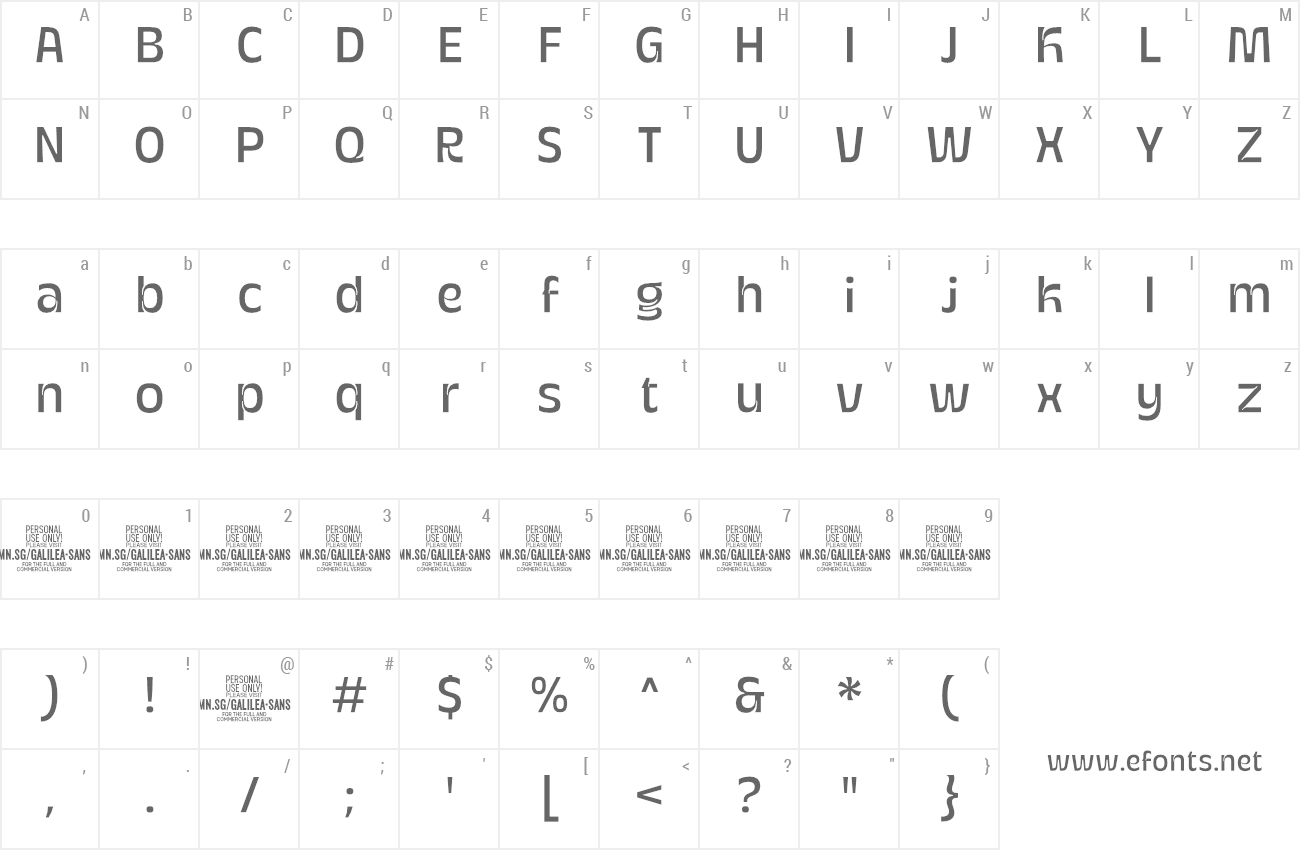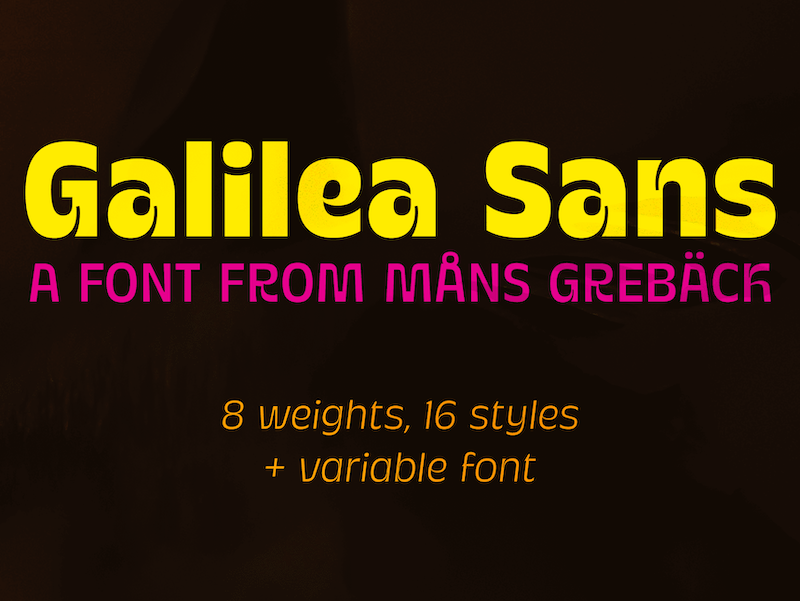
Preview and download Galilea Sans Font. Created by Måns Grebäck in Basic Sans serif styles with Free for personal use license.
NOTE: This font is for PERSONAL USE ONLY! To purchase a commercial license, visit: https://www.mansgreback.com/product/galilea-sans Galilea Sans is a contemporary sans serif family built around clarity, balance, and a calm sense of confidence. The design is clean and structured, with soft curves and open shapes that keep the letterforms friendly. For questions, please visit https://mansgreback.com/faq |